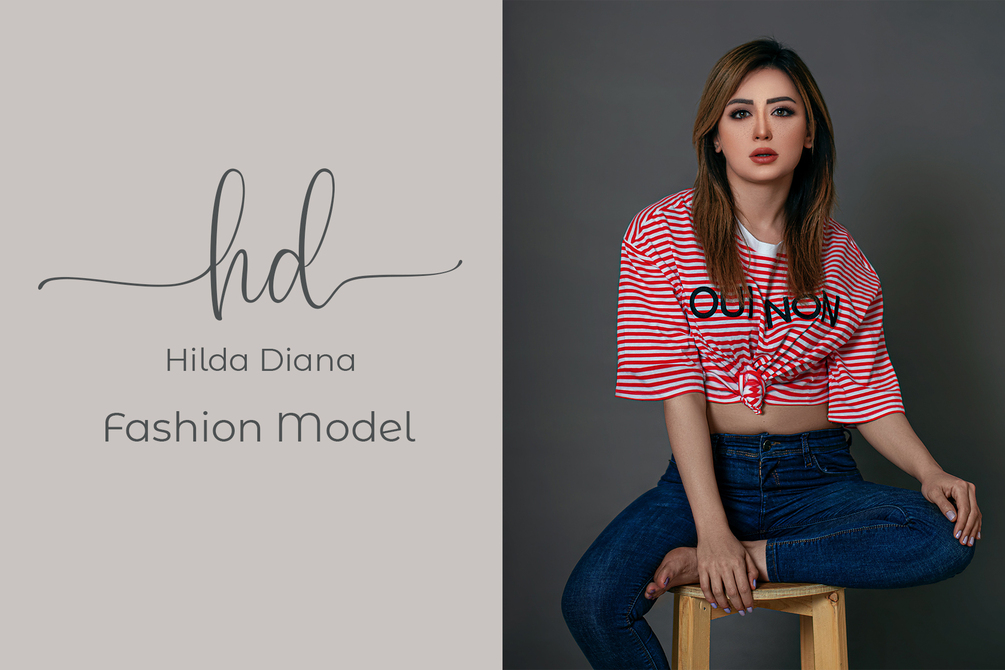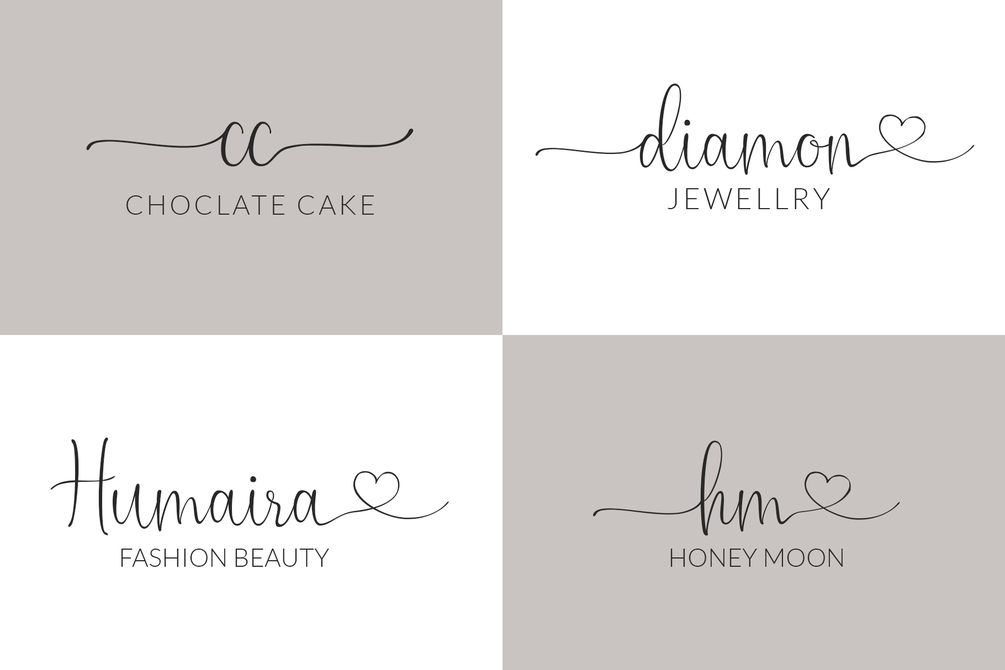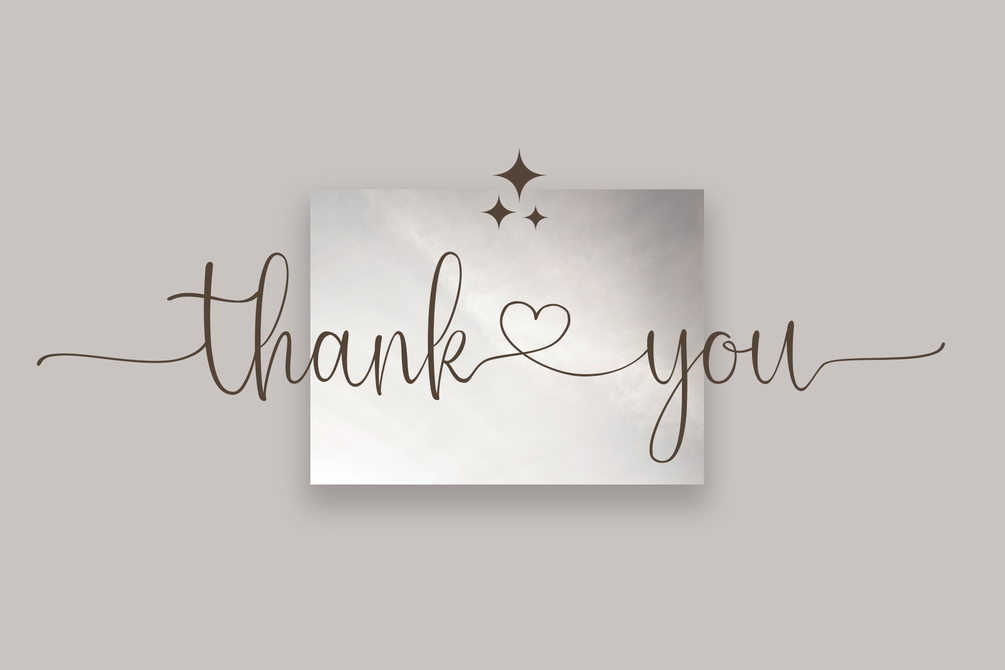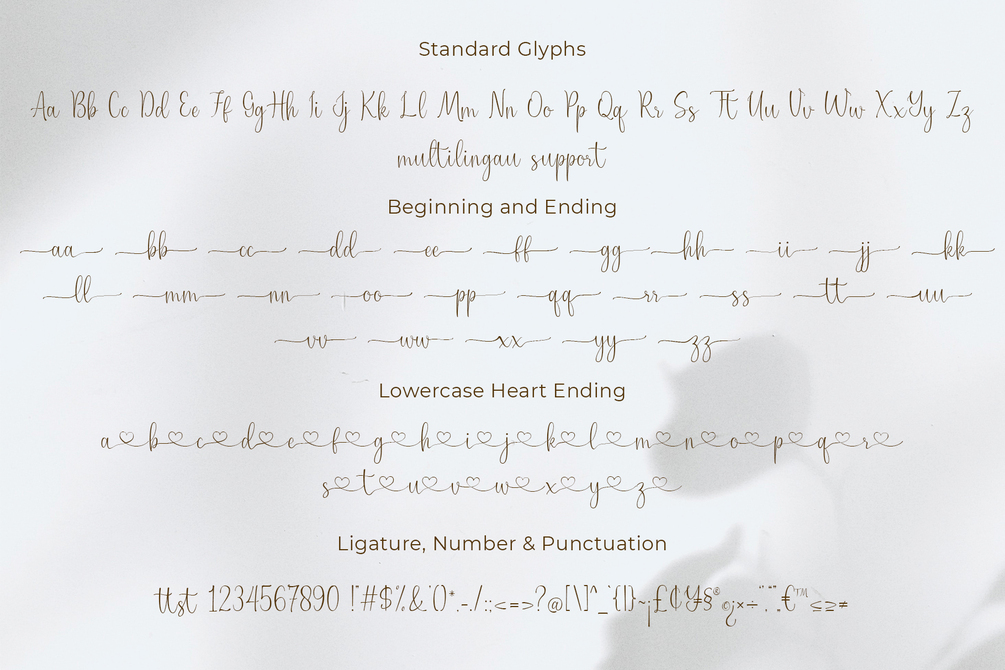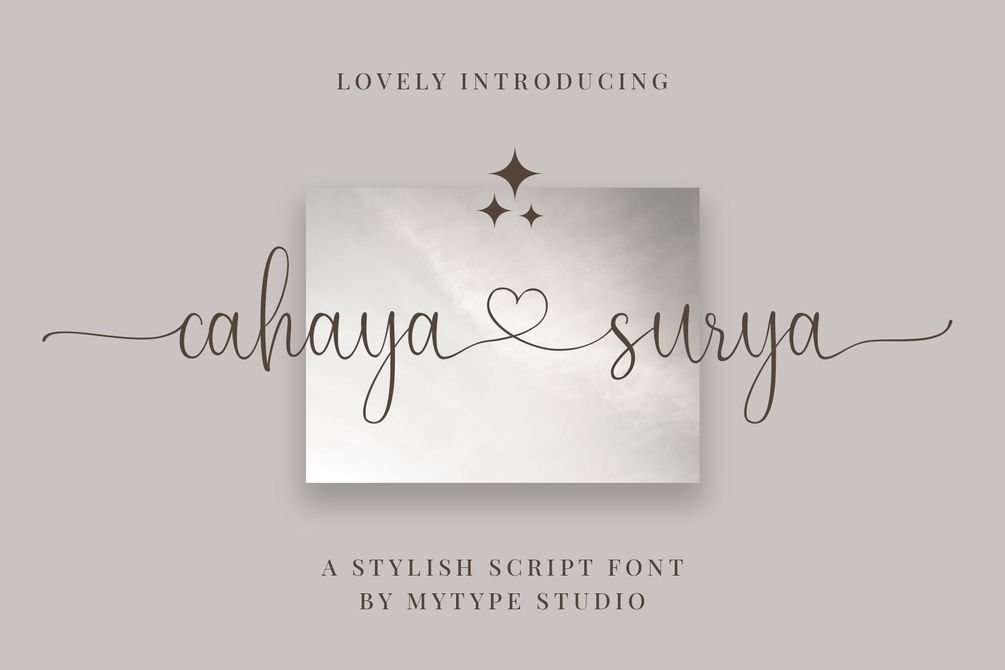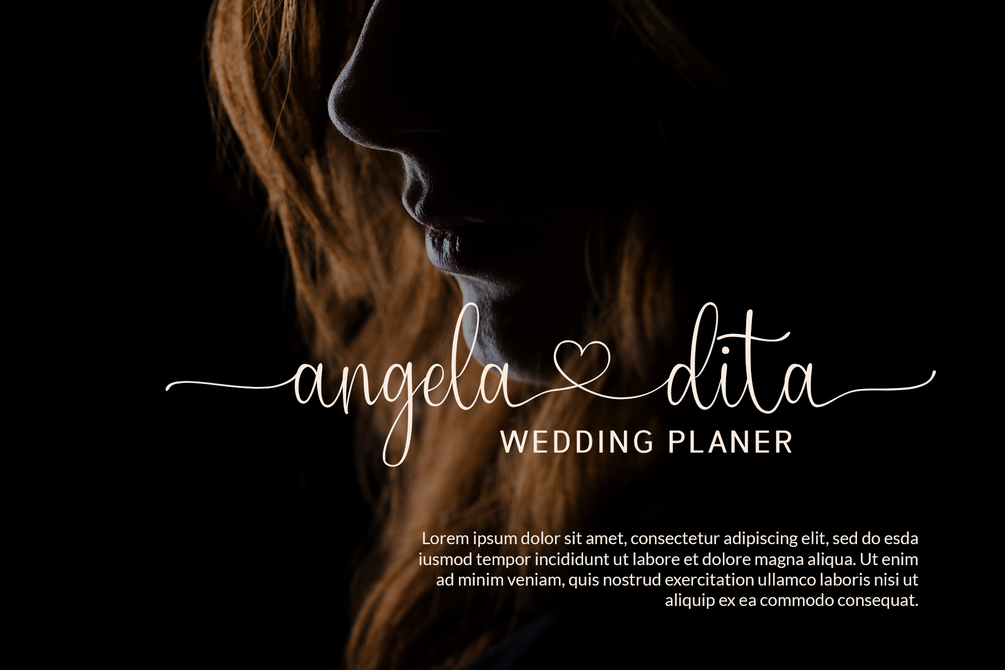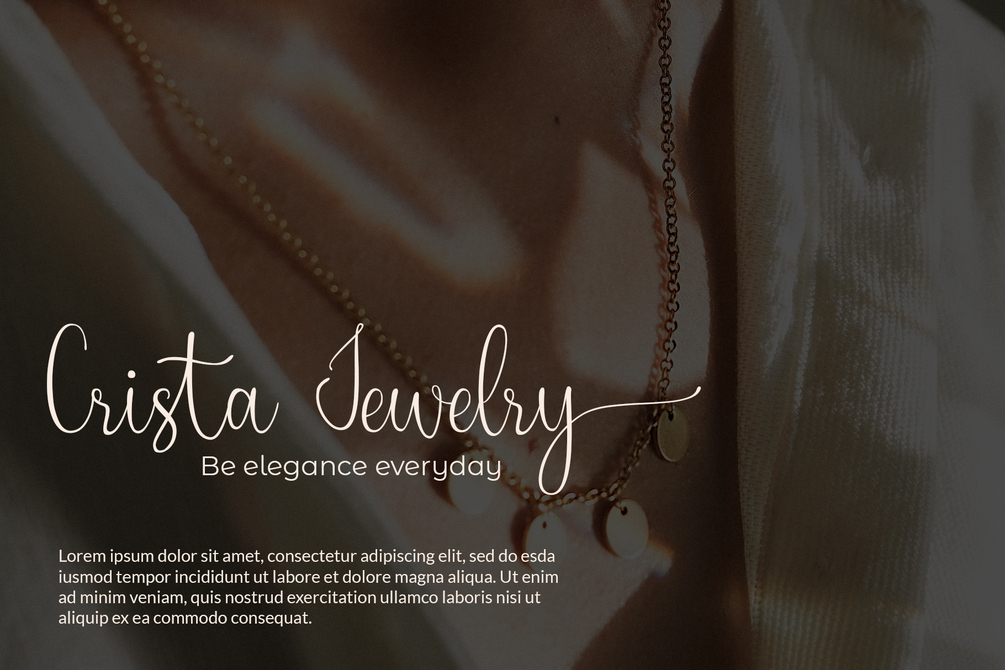
Cahaya Surya | Lovely Script Font
Cahaya Surya is script collection foIntroducing Cahaya Surya: The Elegant and Feminine Script Font
Add a Touch of Elegance and Love to Your Designs
Meet Cahaya Surya, an exquisite script font designed to bring elegance and femininity to your creative projects. Perfect for invitations, branding, and romantic designs, Cahaya Surya features beautiful swashes that lovingly connect each word, creating a harmonious and graceful flow.
Key Features:
- Elegant and Feminine Design: Cahaya Surya combines delicate curves with sophisticated lines, making it ideal for projects that require a touch of elegance and femininity.
- Swash Love Connections: Each word is gracefully connected with swashes, adding a unique and romantic flair to your text.
Why Choose Cahaya Surya?
Romantic and Graceful: Cahaya Surya's flowing lines and elegant swashes make it perfect for designs that need a romantic and feminine touch.
Versatile for Various Applications: From wedding invitations to branding, Cahaya Surya adds a personal and sophisticated touch to any project.
Enhanced Readability: Despite its intricate design, Cahaya Surya ensures that your text remains clear and easy to read, providing both beauty and functionality.
Transform Your Typography with Cahaya Surya
Cahaya Surya is more than just a font; it’s a tool for creating beautiful and meaningful designs. Its elegant and feminine style, combined with the unique swash connections, makes it the perfect choice for projects that need a touch of love and sophistication.nt with natural movement make looks elegant, classy and beauty for your project. Cahaya Surya is perfect for branding projects, logo, wedding designs, social media posts, advertisements, product packaging, product designs, label, photography, watermark, invitation, stationery and any projects that need handwriting taste.
This gorgeous font includes all lowercase and uppercase characters, numbers, punctuation, an array of standard ligatures and a selection of international characters as well.